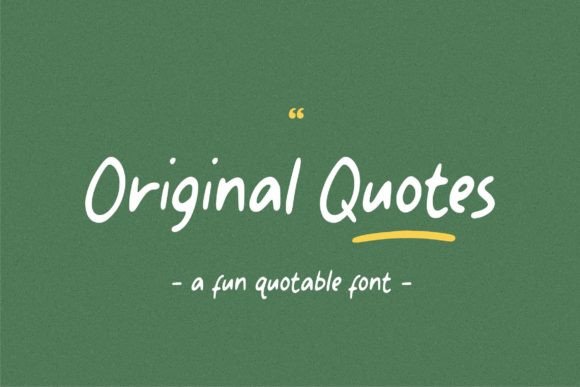
Journey into the world of Original Quotes Font, where your creative visions dance with elegance. This enchanting script font, crafted by the skilled hands of Balpirick, is a symphony of playful strokes and casual charm. Its versatility shines like a constellation in the night sky, beckoning you to explore a cosmos of creative possibilities.
Original Quotes Font is not merely a font; it's an artistic gateway to a world where words take on a life of their own. Its handwritten style exudes a warmth and authenticity that captivates the beholder. Experience the joy of crafting invitations that whisper of heartfelt sentiments, logos that radiate uniqueness, and social media posts that burst with personality.
Let your imagination soar with Original Quotes Font. Design eye-catching posters that ignite conversations, create stunning blog headers that draw readers in, and craft T-shirt designs that make a statement. The possibilities are boundless, like the colors of a painter's palette.
With Original Quotes Font, you possess the power to transform the ordinary into the extraordinary. Its meticulously crafted characters dance across the screen, weaving tales of joy, love, and adventure. Elevate your projects to new heights and make a lasting impression on your audience.
Original Quotes Font is more than just a font; it's an expression of your individuality, a reflection of your creative spirit. Embrace its whimsical charm and watch as your ideas blossom into masterpieces. Download Original Quotes Font today and embark on a journey of creative exploration that knows no bounds.